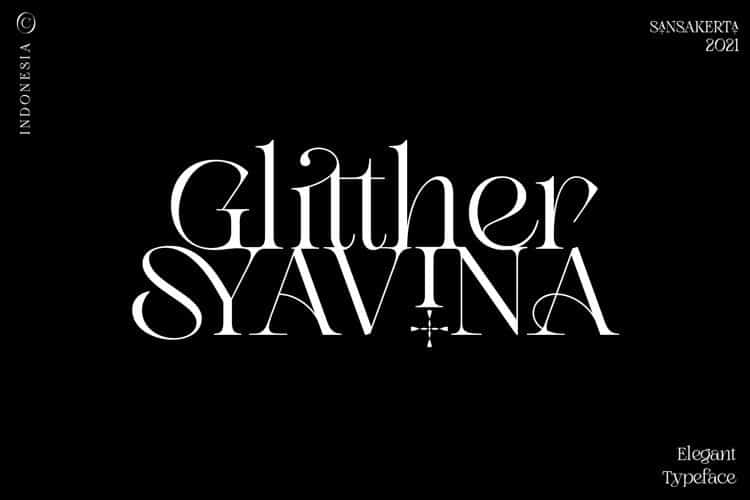
Glitther Syavina Font
Glitther Syavina Serif Font is a versatile, modern and classy display sans serif font manufactured by Sansakerta. Gives a wow effect to big titles, headlines. Perfect for editorial projects, Logo design, Clothing Branding, product packaging, magazine headers, or simply as a stylish text overlay to any background image.